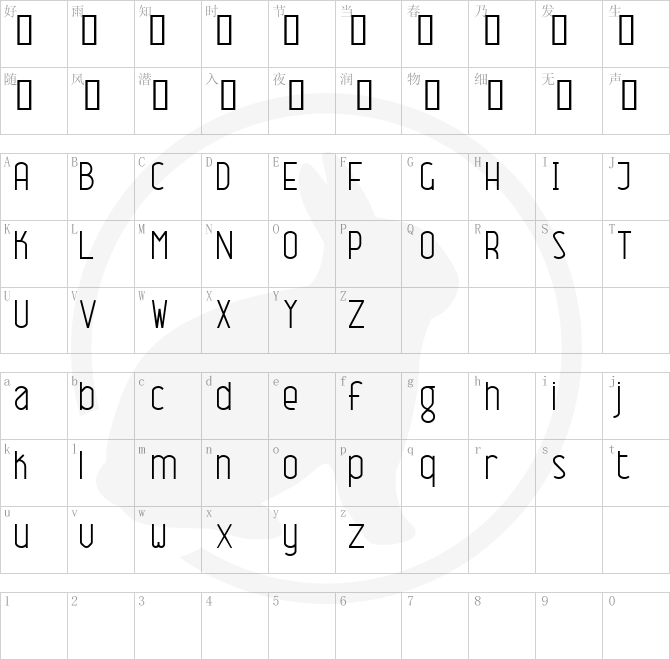
- Font Name:Name This Font
Name-This-Font-Normal.ttf is a very beautiful artistic font, Name-This-Font-Normal.ttf is widely used in the design and printing of various books and pictures,Name-This-Font-Normal.ttf has a strong visual impact,Name-This-Font-Normal.ttf is a commonly used font in newspapers, magazines and books, and is used in posters, e-commerce Poster design, store design, logo design, font design and other fields.Name-This-Font-Normal.